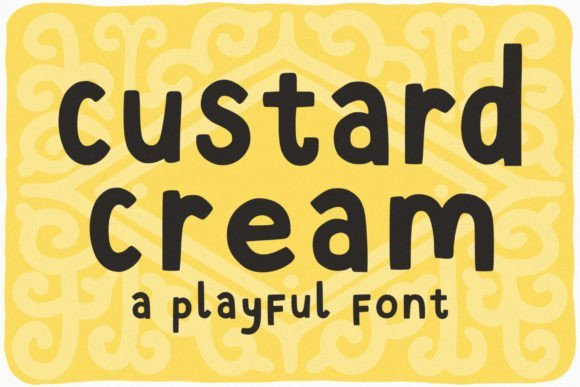
The Perfect Font for a Touch of Whimsy
Do you remember the feeling of rummaging through your grandmother’s attic, uncovering a treasure trove of vintage trinkets and dusty childhood treasures? That’s the exact vibe we’re going for with the Custard Cream Font – a playful, child-like typeface that’s sure to bring a smile to anyone’s face.
This delightful font is the perfect addition to any design project that needs a dash of whimsy. Whether you’re creating a T-Shirt design, a phone case, or a greeting card, the Custard Cream Font is sure to add a touch of personality and charm. And the best part? It’s incredibly versatile, making it a valuable asset for designers looking to add some fun and flair to their work.
Custard Cream Font Key Features
- Font Family: Custard Cream is a unique, hand-drawn font with a creamy texture and a vintage feel.
- Font Size: Designed to be highly legible at large sizes, with optimal readability at 24pt and above.
- Unique Characteristics: Features a distinctive, hand-drawn style with subtle texture and imperfections, giving it a warm and inviting feel.
Custard Cream Font Review
Overall, I think Custard Cream Font is a cute and playful font that’s perfect for titles and headings in a whimsical design. ✨ It’s fun to use and can add a touch of nostalgia to any project. The font’s curves and rounded edges make it feel soft and approachable.
- It’s great for creating a friendly and approachable tone.
- The font’s versatility makes it suitable for a wide range of design projects.
- It’s a good choice for titles, headings, and short text snippets.
However, I do think there are some limitations to consider. ⚠️ The font can feel a bit too childish or cartoonish at times, which may not be suitable for all projects. Additionally, the font’s curves can make it difficult to read at smaller font sizes.
- It may not be the best choice for body text or longer blocks of text.
- The font’s curves can make it difficult to read at smaller font sizes.
- It may not be suitable for formal or professional designs.
Overall, I think Custard Cream Font is a fun and playful font that’s perfect for certain types of projects. While it has some limitations, I think it’s a great choice for designers looking to add a touch of whimsy to their designs.
The Custard Cream Font is ideal for:
- Creating a vintage or retro aesthetic.
- Designing packaging or branding for baked goods or desserts.
- Adding a playful touch to invitations or promotional materials.
To get the most out of the Custard Cream Font, try combining it with:
- Warm, muted colors.
- Distressed or textured effects.
- Whimsical illustrations or graphics.
Alternatives to Custard Cream Font
Bebas Neue is a modern sans-serif font that is perfect for creating a clean and elegant look. It has a high level of legibility, making it suitable for body text and titles. Bebas Neue is a great alternative to Custard Cream Font for designers who want a more contemporary and sophisticated feel.
Comparison: Bebas Neue is more geometric and has a more minimalist design compared to Custard Cream Font, which has a more ornate and vintage feel.
Playfair Display is a luxurious serif font that is ideal for creating a high-end and elegant look. It is perfect for titles, headings, and body text that requires a touch of sophistication. Playfair Display is a great alternative to Custard Cream Font for designers who want to add a sense of luxury and refinement to their design.
Comparison: Playfair Display is more ornate and luxurious compared to Custard Cream Font, which has a more vintage and eclectic feel.